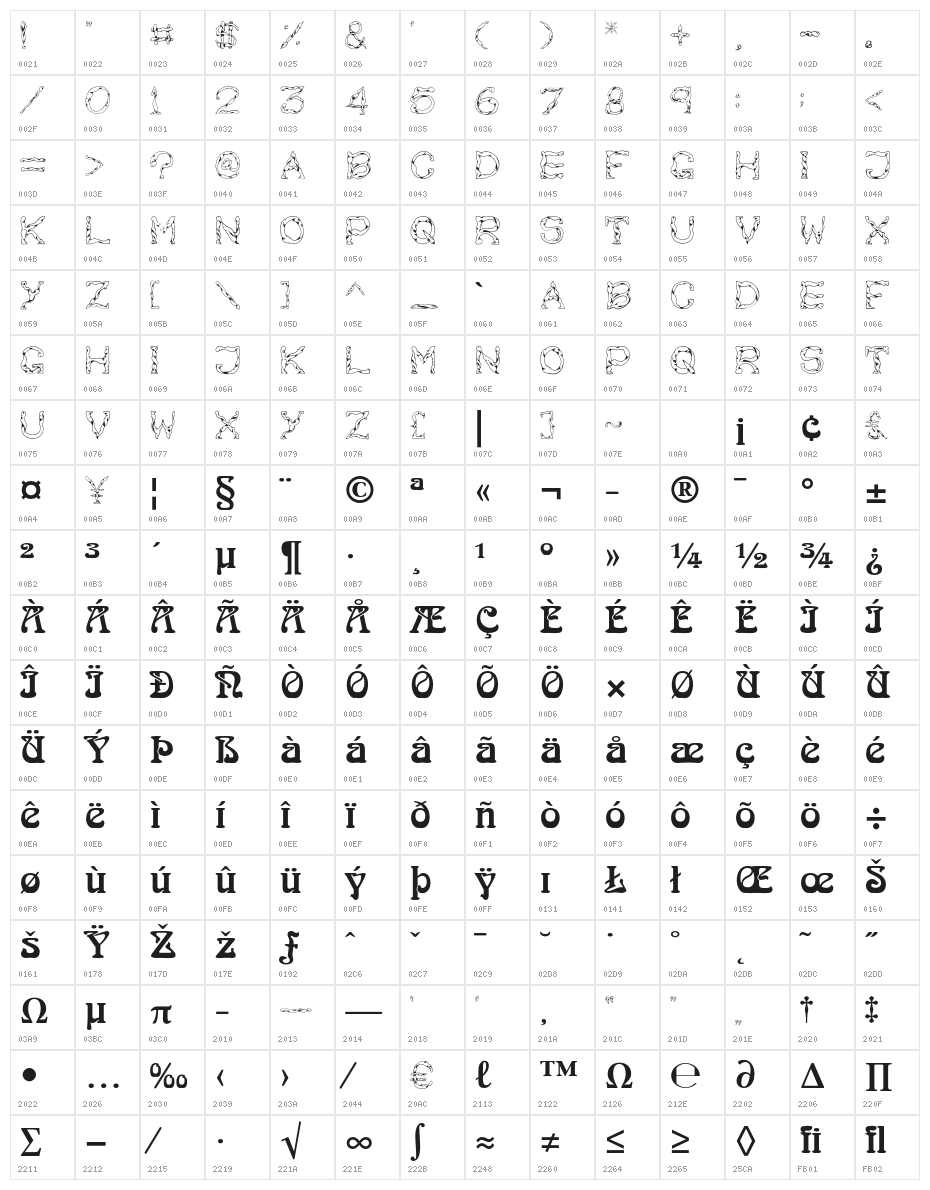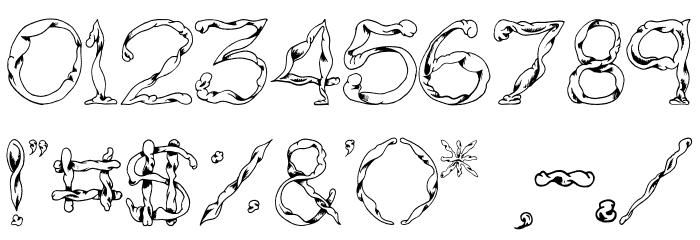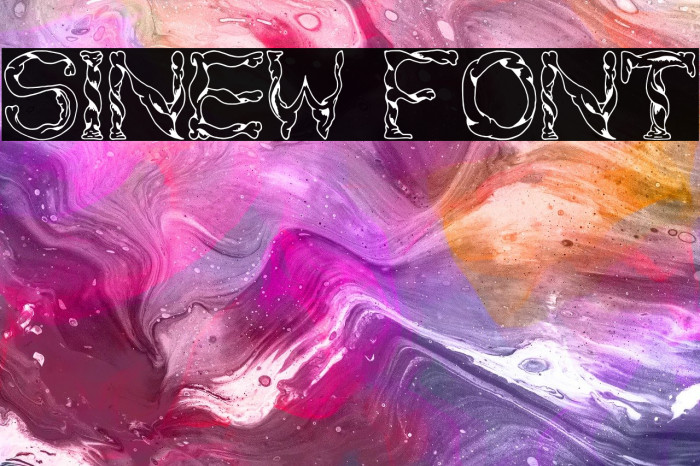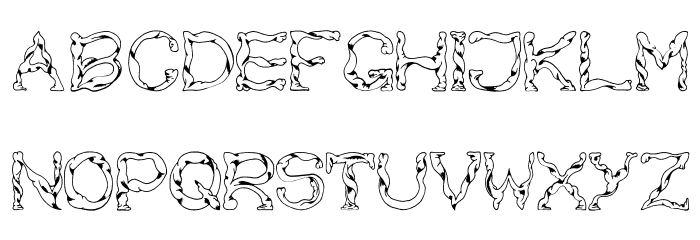
Sinew Font
Sinew Description
This font features a unique and organic design, with each character appearing as if it is composed of intertwined sinewy strands. The letters have a fluid, almost liquid-like appearance, giving them a dynamic and eye-catching quality. The intricate detailing within each character creates a sense of movement and texture, making it stand out as a decorative typeface. The font maintains a consistent style across uppercase, lowercase, numbers, and special characters, ensuring a cohesive look. Its artistic and unconventional design makes it suitable for creative projects that require a bold and distinctive visual impact.
| Use Case | Logos, Posters, Artistic projects |
| Proposed Projects | Ideal for artistic projects, album covers, posters, and branding that require a bold and unique visual statement. |